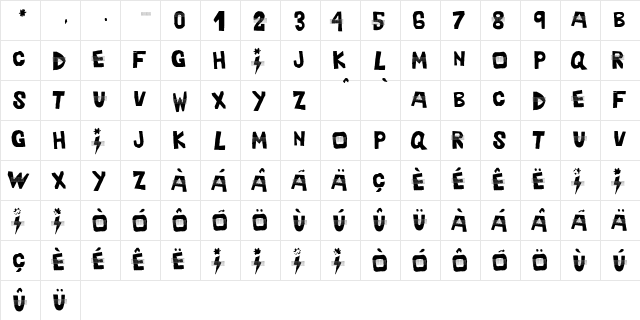
TETARIA DEMO VERSION Regular
| Foundry | MARCIO HIROSSE |
| Designer | MARCIO HIROSSE |
Design Context for TETARIA DEMO VERSION Typeface
TETARIA DEMO VERSION is a composed and adaptable typeface that performs quietly and consistently across a wide range of design contexts.